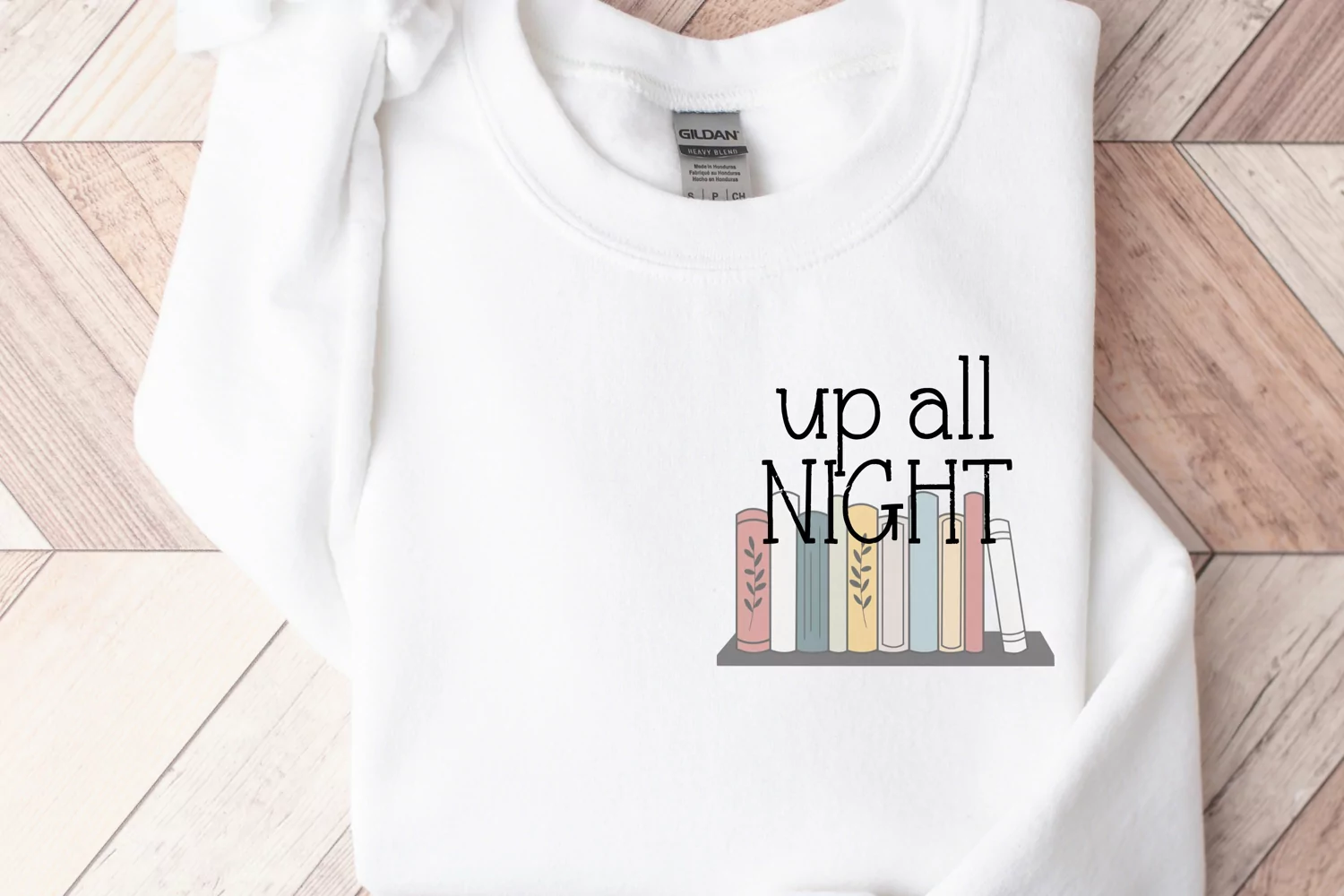
Vintage Writer, Distressed Typewriter Handwritten font
Introducing Vintage Writer, a distressed typewriter style Handwritten Font for Cricut and more- a charming and cute addition to your creative projects! This unique font is perfect for all your Cricut designs, making it a must-have for craft enthusiasts. With its playful and fun handwriting style, it adds a touch of whimsy and personality to any project. Whether you're crafting cards, scrapbooking, or designing SVG files, this font will bring your creations to life. Get ready to impress with our amazing Cricut font collection and unlock endless possibilities for your artistic endeavors!